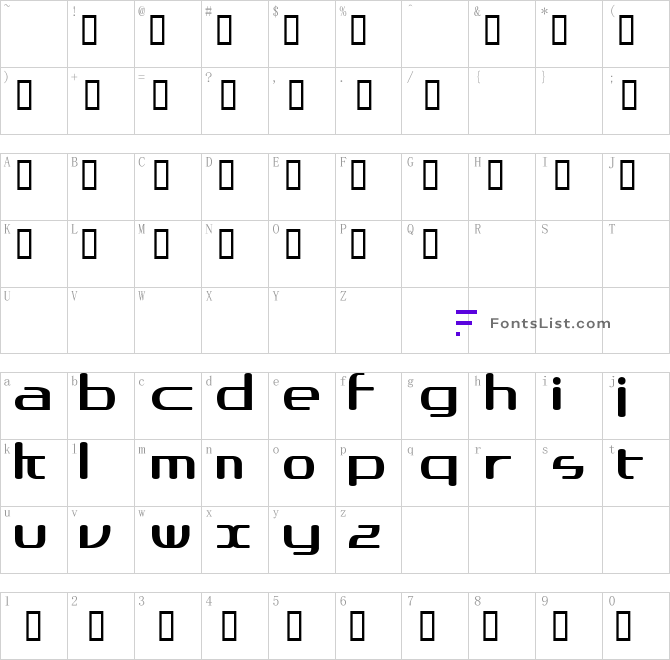
- Font Name:asos19101357
asos19101357.ttf is a very beautiful artistic font, asos19101357.ttf is widely used in the design and printing of various books and pictures,asos19101357.ttf has a strong visual impact,asos19101357.ttf is a commonly used font in newspapers, magazines and books, and is used in posters, e-commerce Poster design, store design, logo design, font design and other fields.asos19101357.